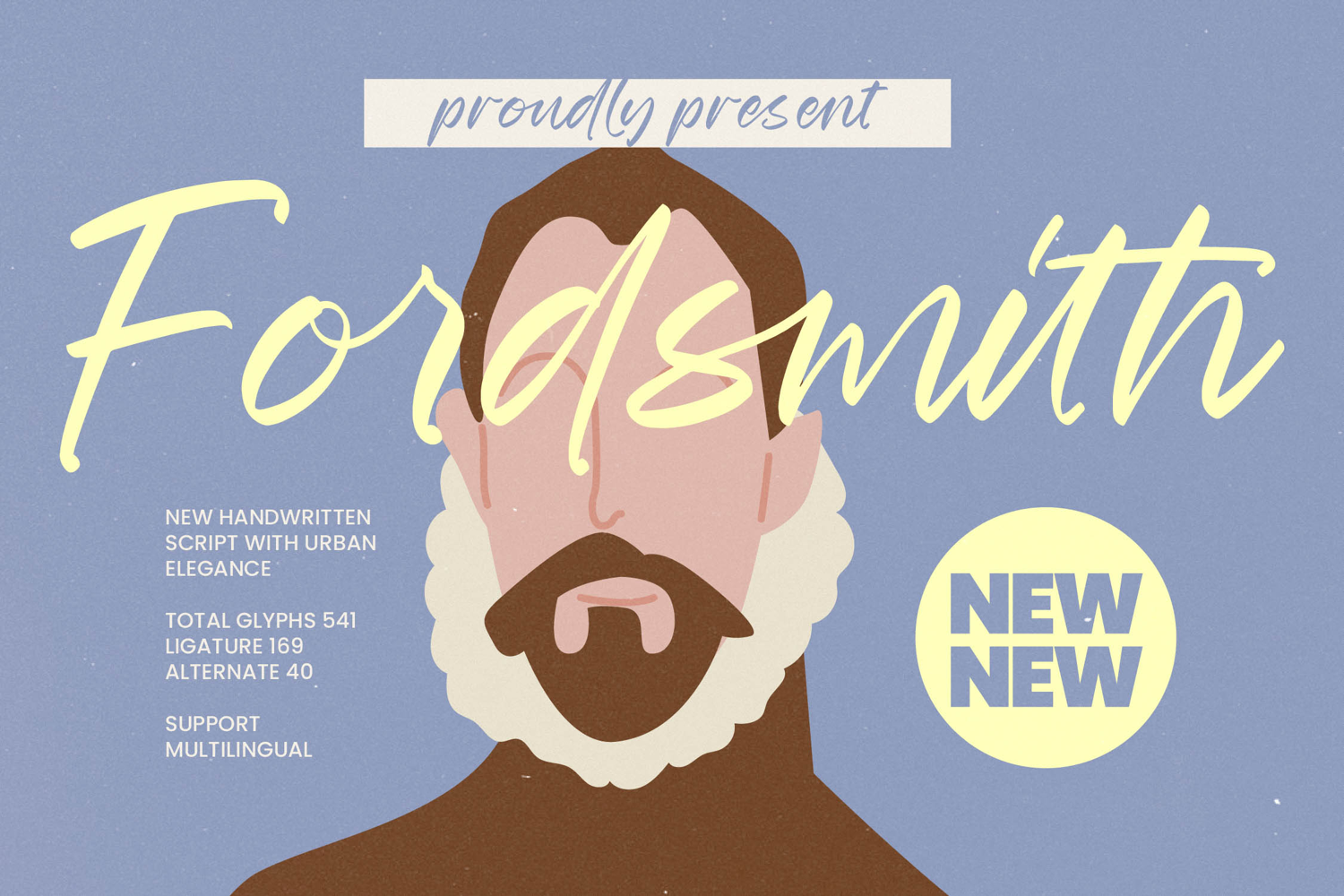
Fordsmith - New Handwritten Script With Urban Elegance
Unlock unparalleled typographic realism and variation. Boasting a massive library of 541 total glyphs, including 169 custom ligatures and 40 stylistic alternates, Fordsmith - New Handwritten Script With Urban Elegance ensures natural, non-repeating letter combinations. This extensive OpenType functionality provides designers with the tools to create truly seamless, authentic handwriting flow, avoiding the digital uniformity that plagues lesser scripts.